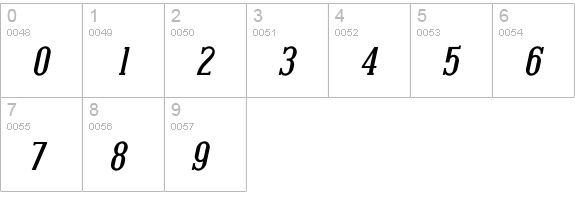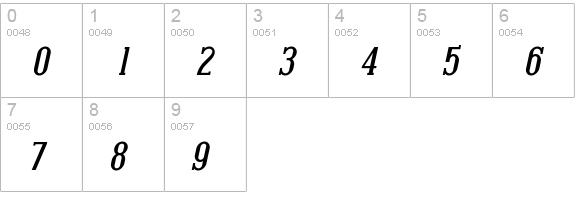
Covington Bold Italic is a strong, high-contrast, italic variant in the Covington typeface family \xE2\x80\x94 well suited to headlines, attention-grabbing titles, and strong calls-to-action.
Introducing Covington Bold Italic, a striking and versatile font designed to make a bold statement in any project. This modern and stylish typeface exudes confidence and sophistication, with its strong lines and elegant curves. Perfect for adding a touch of flair to your designs, Covington Bold Italic is the ideal choice for headlines, logos, posters, and more. Not only does Covington Bold Italic offer exceptional visual appeal, but it also provides excellent readability, ensuring that your message will be conveyed clearly and effectively. Whether you're looking to create eye-catching branding materials or captivating marketing campaigns, this font is sure to elevate your work to the next level. Best of all, Covington Bold Italic is available for free download at FontsMarket.com, allowing you to access this premium font without any cost. Don't miss out on the opportunity to enhance your design projects with the bold and dynamic style of Covington Bold Italic. Download it today and see the difference it can make in your creative endeavors.